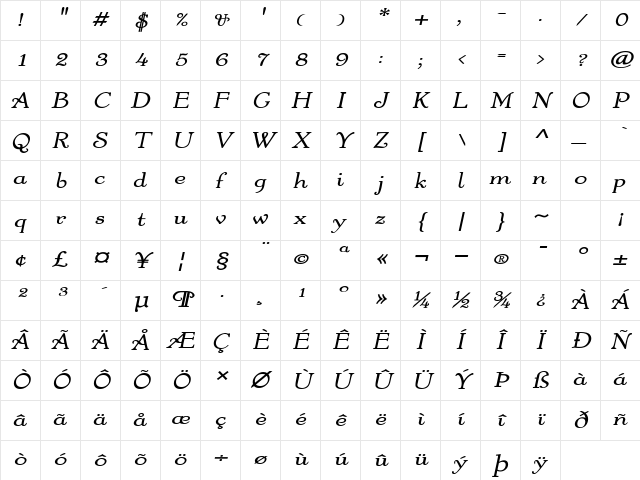
Fanciful-Extended Bold Italic
Design Context for Fanciful-Extended
Fanciful-Extended is a composed and adaptable typeface that performs quietly and consistently across a wide range of design contexts. The slanted form adds forward momentum and visual energy. Its bold stroke weight gives it real presence on the page.
Pro Tip: Use Fanciful-Extended for emphasis, pull quotes, and subheadings where its slanted energy can add rhythm to the layout.